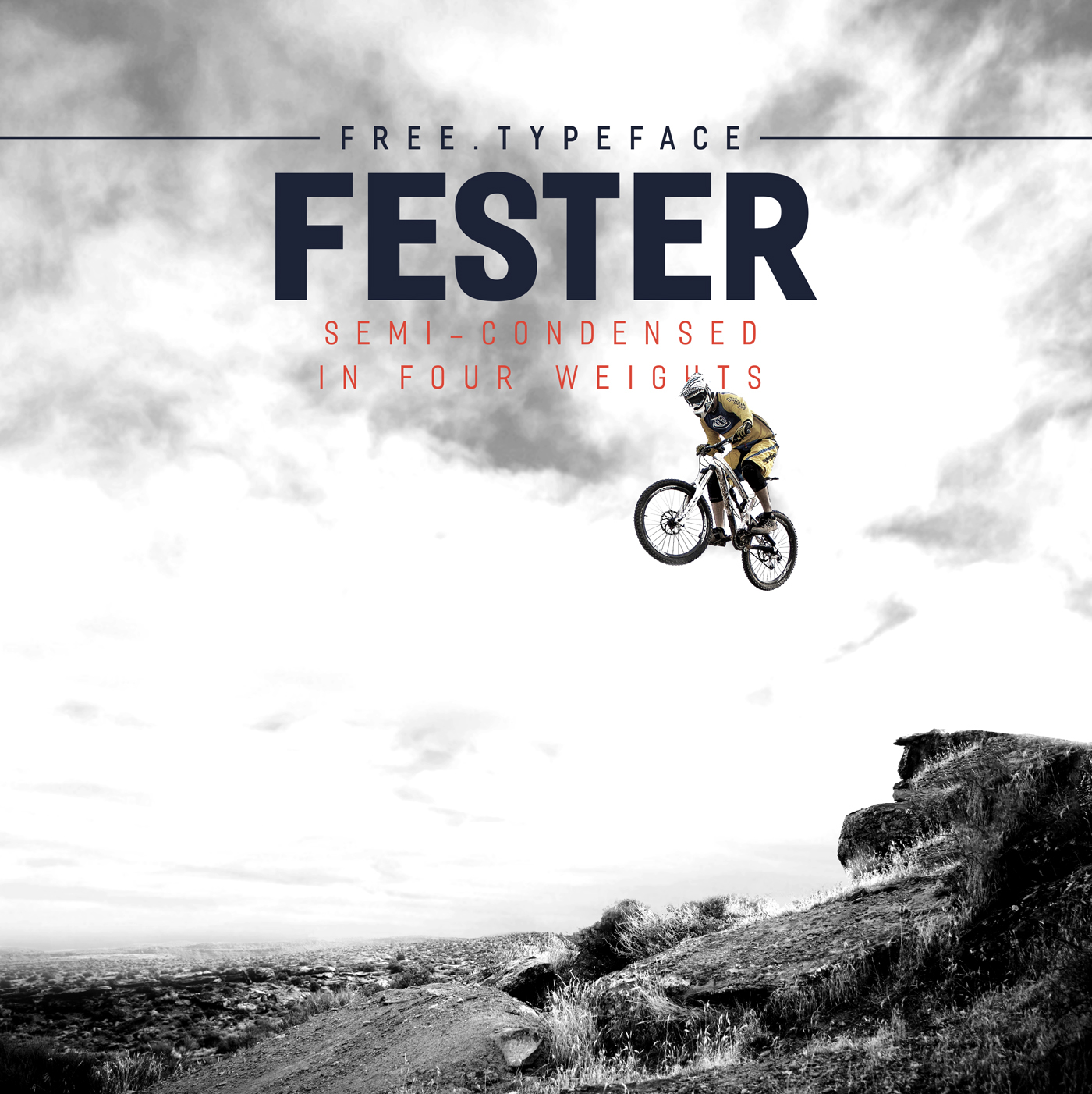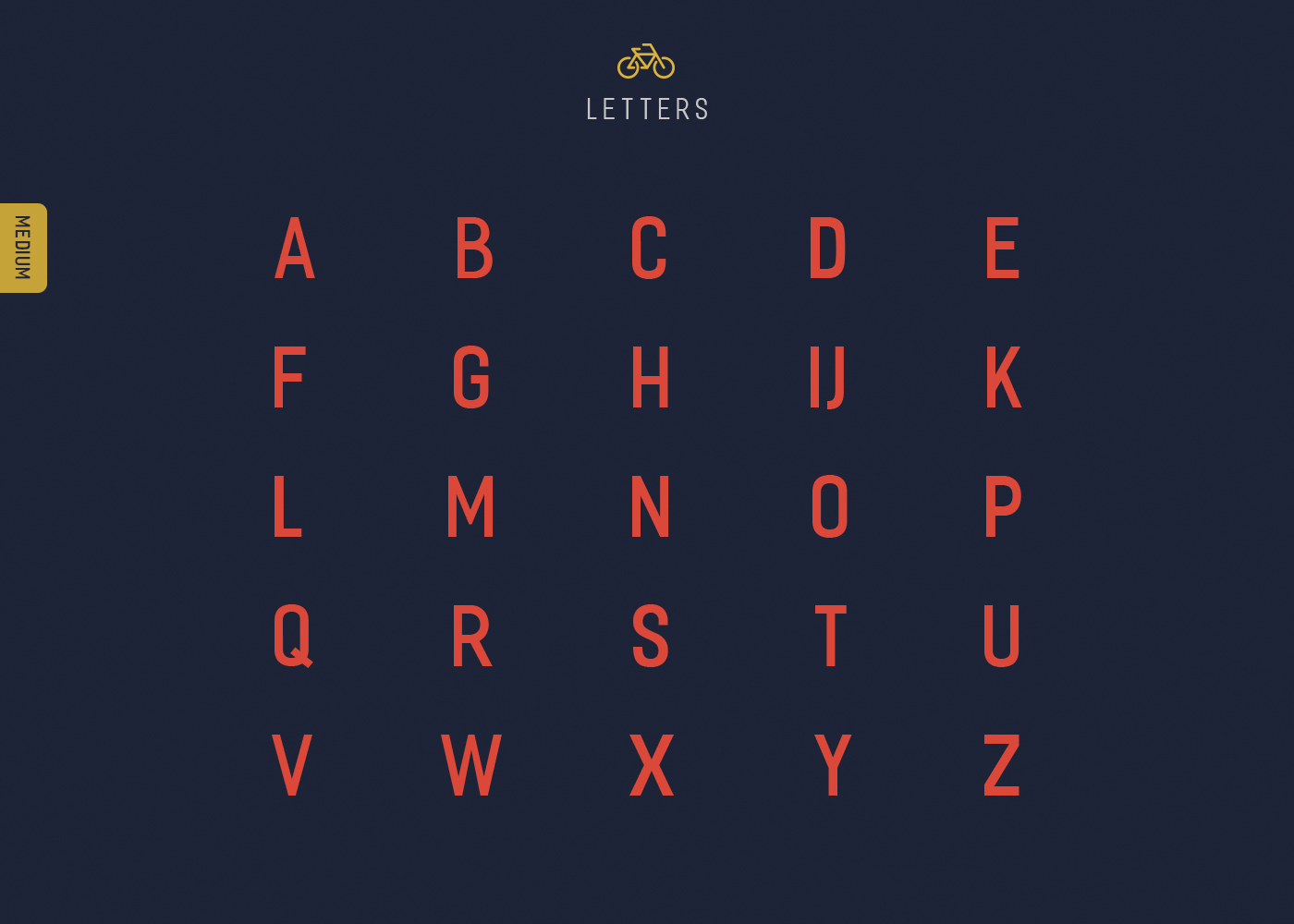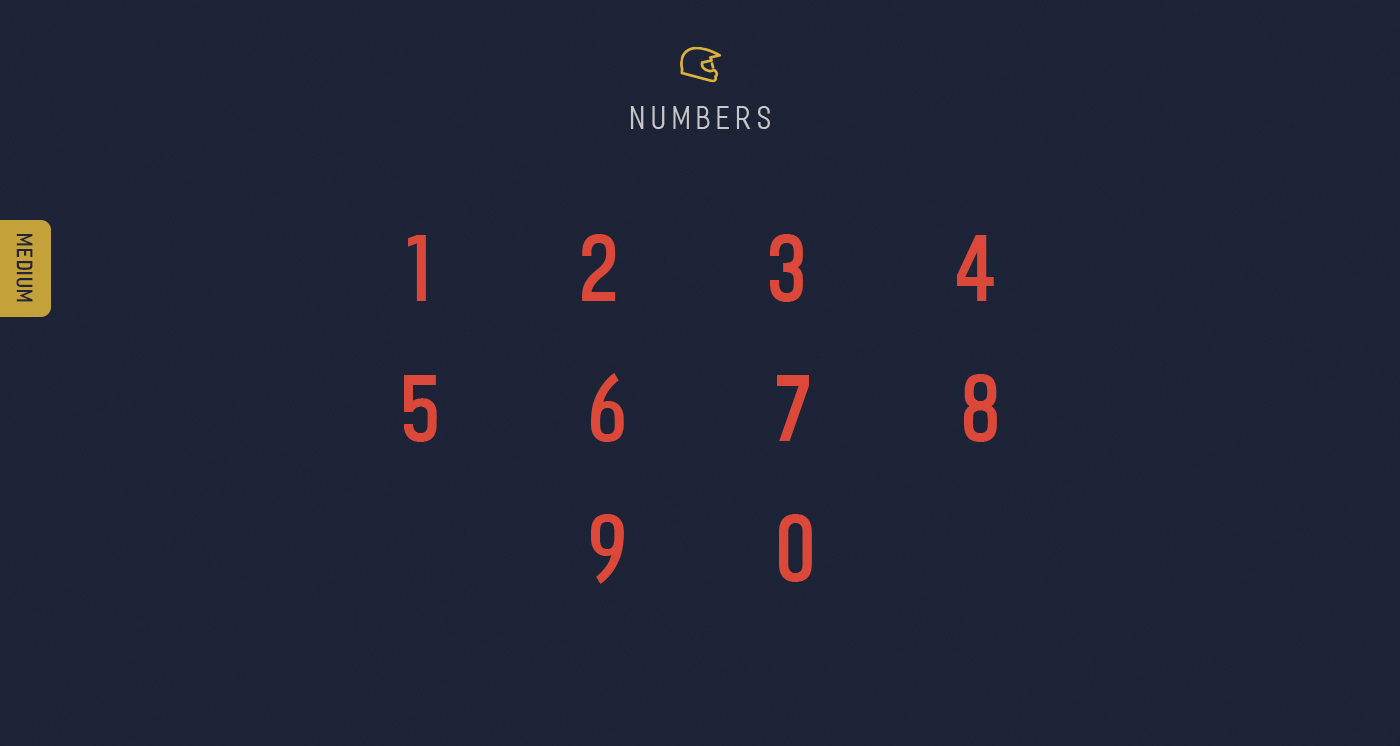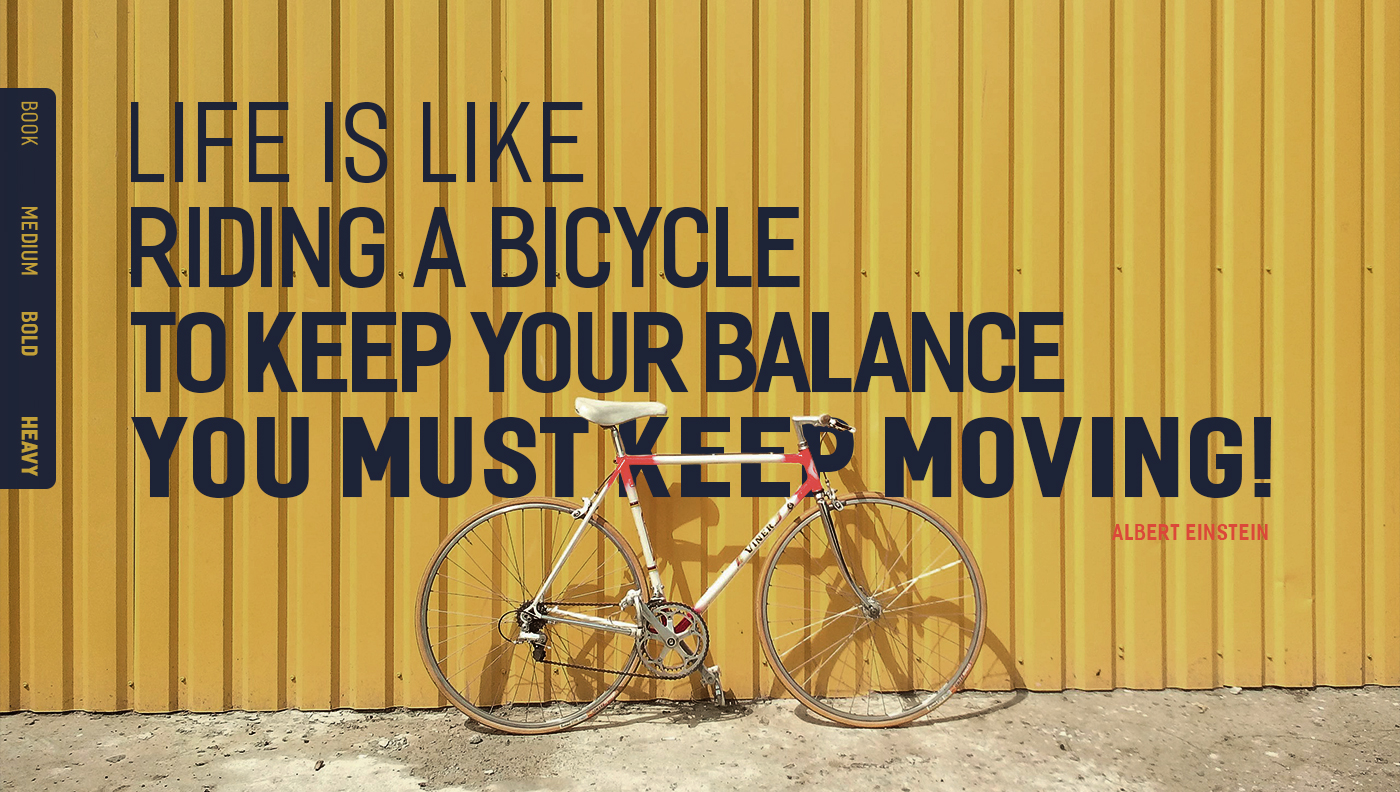
Fester free typeface is sans semi-condensed in four weights
Fester free typeface is sans semi-condensed and it’s available in four weights. With a strong impact, this sans-serif looks good and it will be great for posters, headlines, logos, flyers, or whatever your imagination decides.
Fester free typeface
Fester typeface
Fester typeface numbers
Fester typeface available in four weights